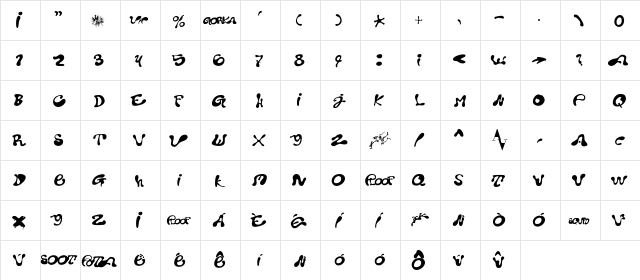
pota Regular
| Foundry | gorka garcia hernandez |
| Designer | gorka garcia hernandez |
Design Context for pota Typeface
pota is a composed and adaptable typeface that performs quietly and consistently across a wide range of design contexts.